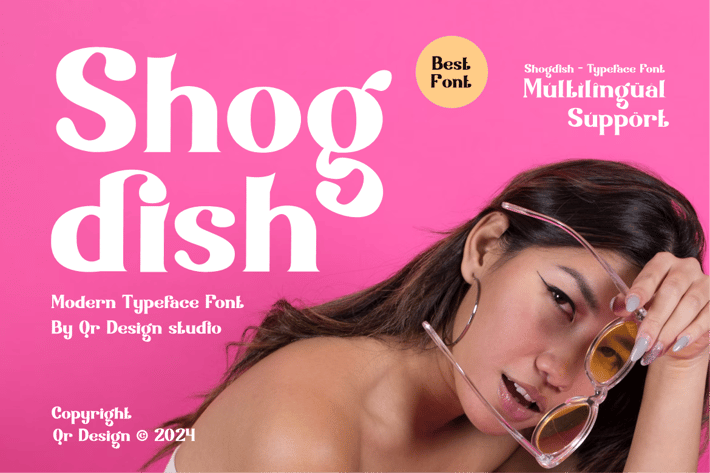
Shogdish - Serif & Modern Typeface Font
Shogdish Font is a serif and authentic display font.
The font is suitable for any branding project like stylish, poster, logo, sport, and many more.
Main Features
+ Uppercase & Lowercase
+ Ligatures & Alternate
+ Numeral & Punctuations
+ Multilingual Support
+ Extended Character Set